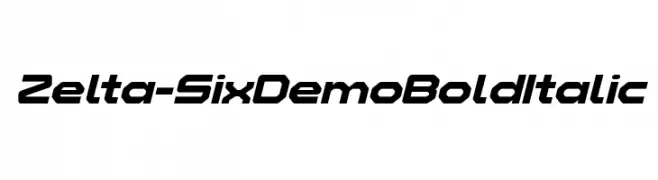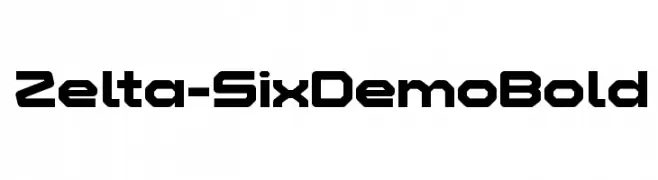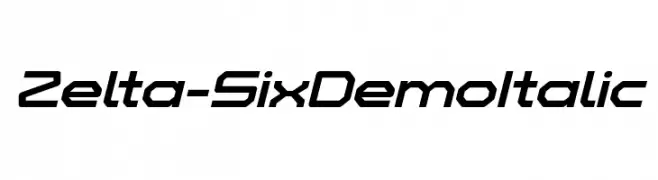
A bold, italicized font with a futuristic, angular design.
A bold, geometric font with a futuristic, digital aesthetic.
A modern, italicized font with a futuristic and dynamic design.